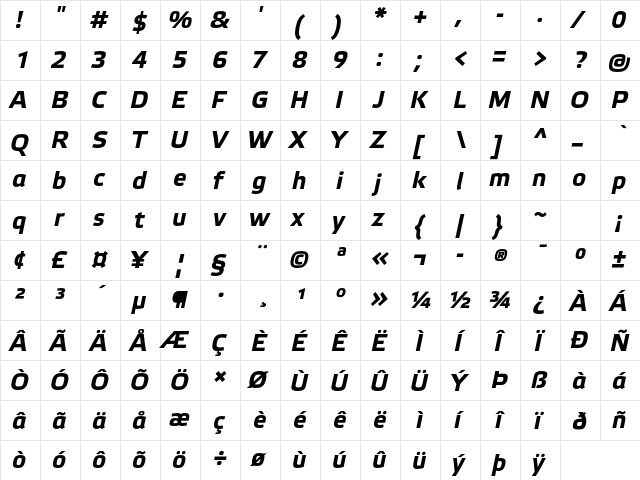
Elektra Text Pro Bold Italic Font Preview
Design Context for Elektra Text Pro Typeface
Elektra Text Pro offers clean, dependable letterforms without strong stylistic allegiance, making it a practical choice for designers who need flexibility. Its italic angle brings a sense of urgency and motion to the letterforms. Its bold stroke weight gives it real presence on the page.
Pro Tip: Try Elektra Text Pro for annotation and caption copy alongside an upright companion — the contrast in angle creates a dynamic but ordered typographic system.